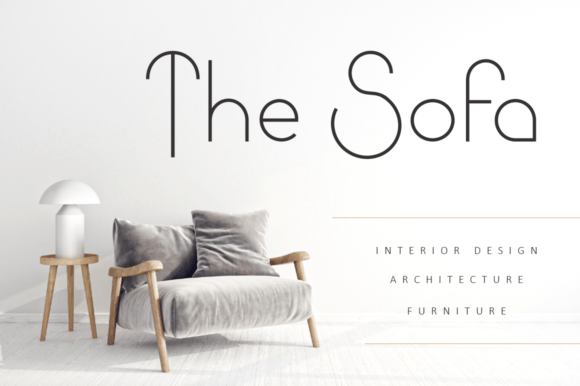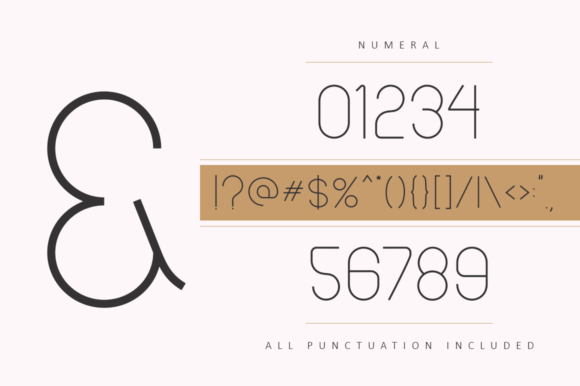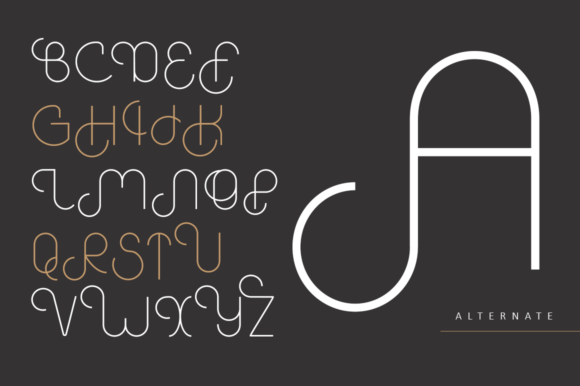
Introduction to Raloth Font Font
Fonts play a crucial role in design, and the Raloth Font font is a typeface that brings both character and versatility to any project. Whether you’re working on a branding project, a website, or a print design, the Raloth Font font offers a unique style that can elevate your work.
Raloth is the modern display font.
Mix special sans with essential rounded ligature and alternates, making this font very exclusive and elegant Specially used for your project’s design like fashion, business cards, logotype, music projects, architecture, and packaging products.
Key Features of Raloth Font Font
Why Choose Raloth Font Font?
The Raloth Font font is more than just a typeface – it’s a design tool that helps you communicate your message with style and clarity. Its unique character set and versatile design make it suitable for a wide range of applications, from elegant invitations to bold headlines.
With its carefully crafted letterforms and balanced proportions, the Raloth Font font ensures readability and visual appeal across all mediums.
What makes Raloth Font font special?
The Raloth Font font stands out with its unique design, exceptional readability, and versatility across various design applications.